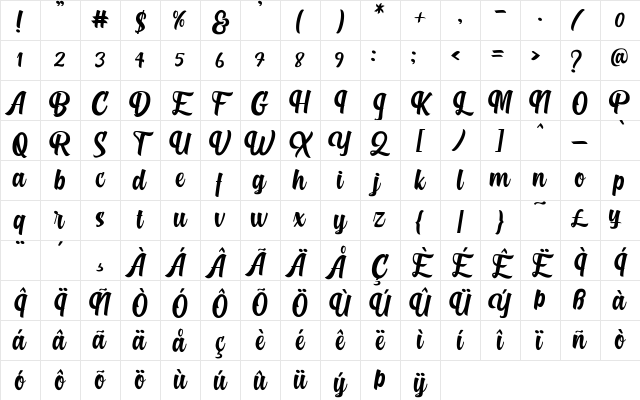
Dalgona is a composed and adaptable typeface that performs quietly and consistently across a wide range of design contexts.
Who designed the Dalgona Regular font?
This font was published by Ari Fadli (Debut Studio). Check the technical specs section for copyright and designer details.